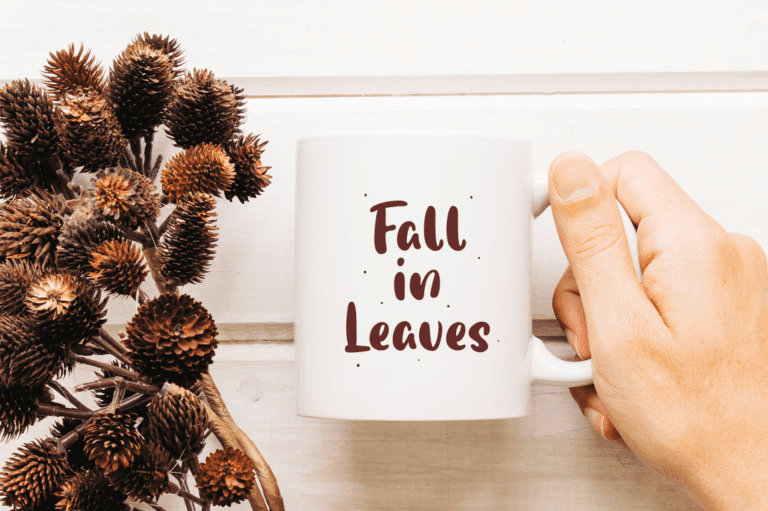
Pumpkin Font
Pumpkin Story a bold handwritten font bursting with fun and character. With its lively strokes and playful design, this font is perfect for projects that need a vibrant and engaging touch, such as posters, children’s books, or social media graphics. Pumpkin Story adds a joyful and whimsical vibe to your text, ensuring your designs stand out with charm and personality.